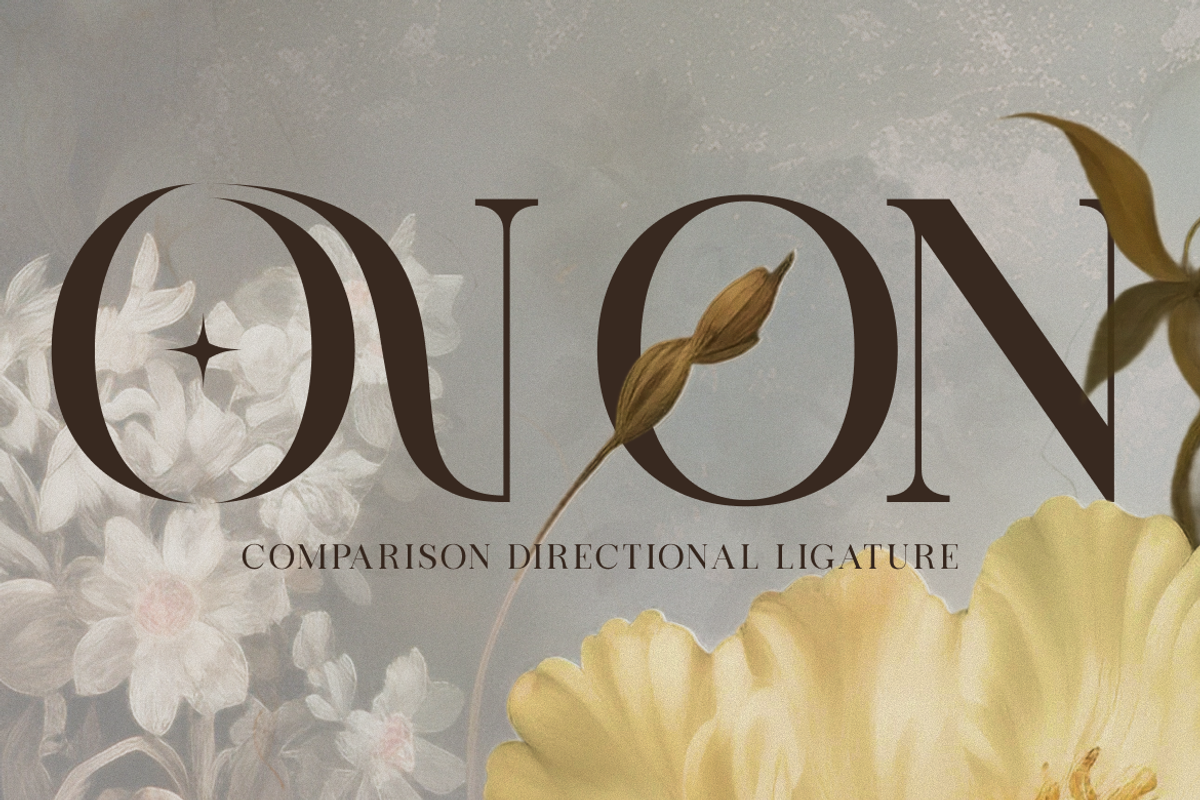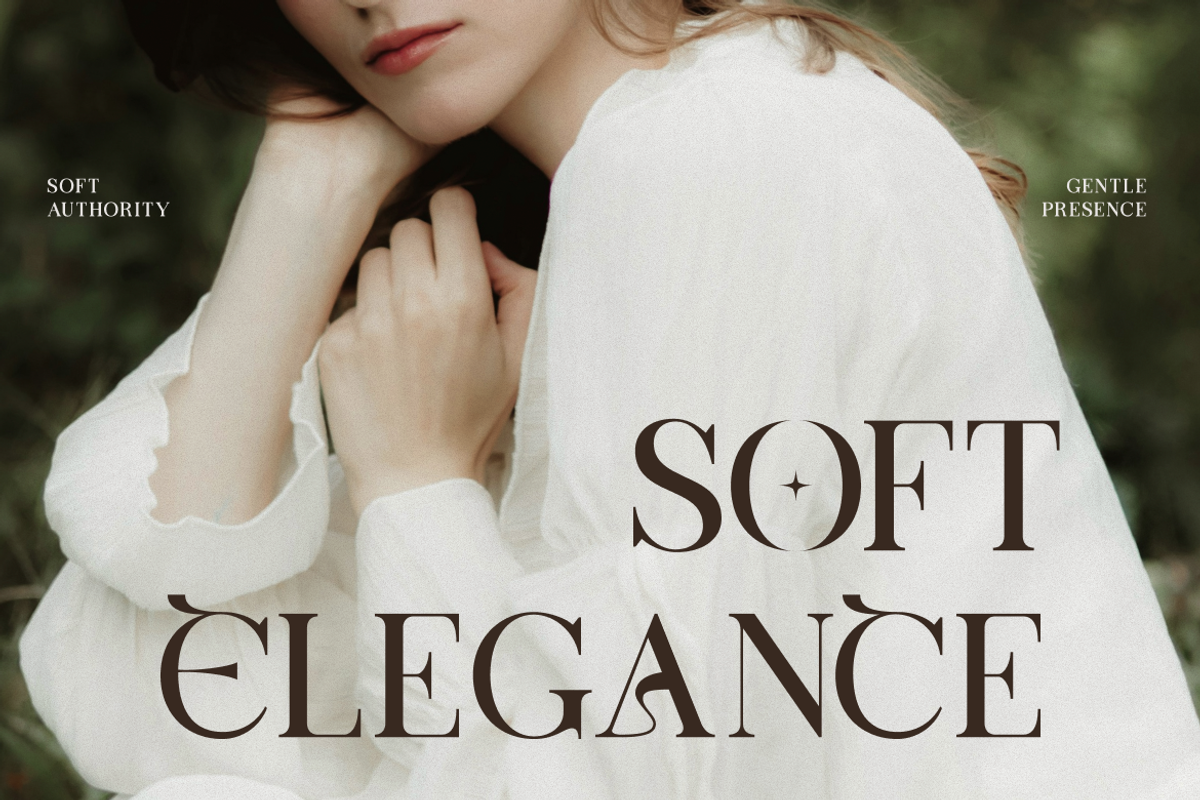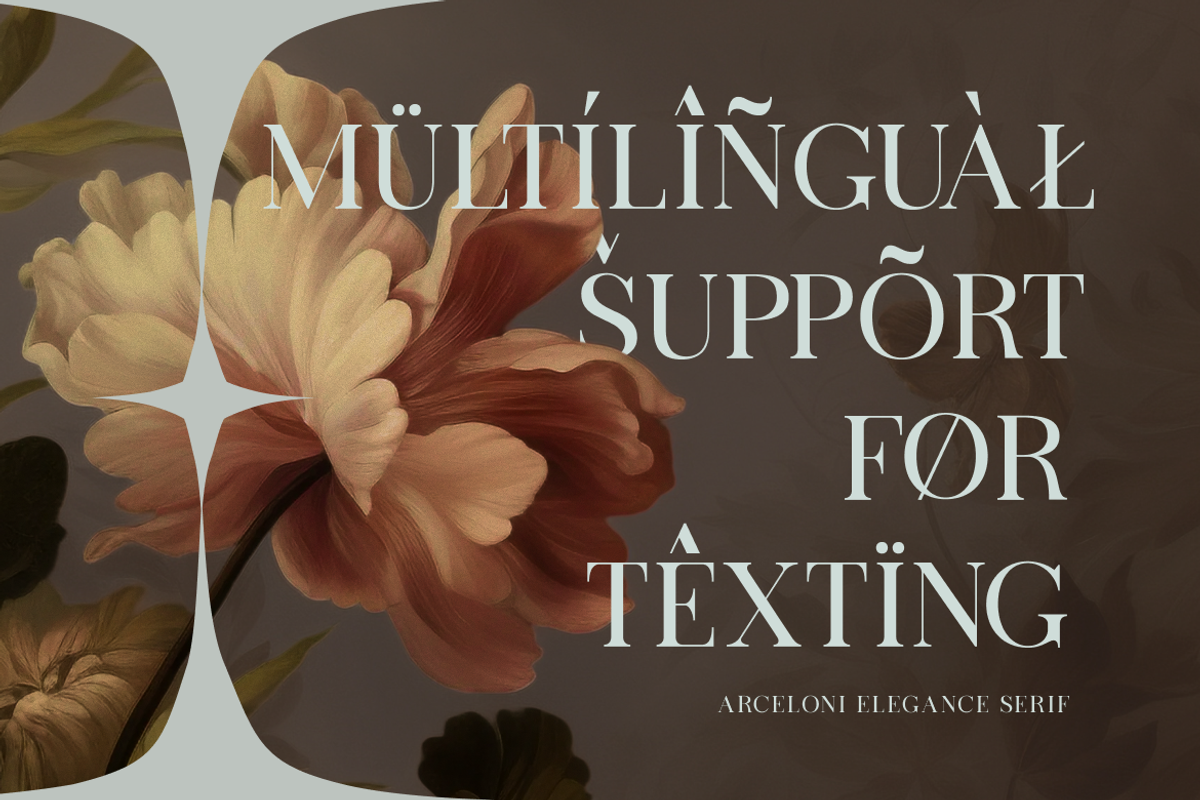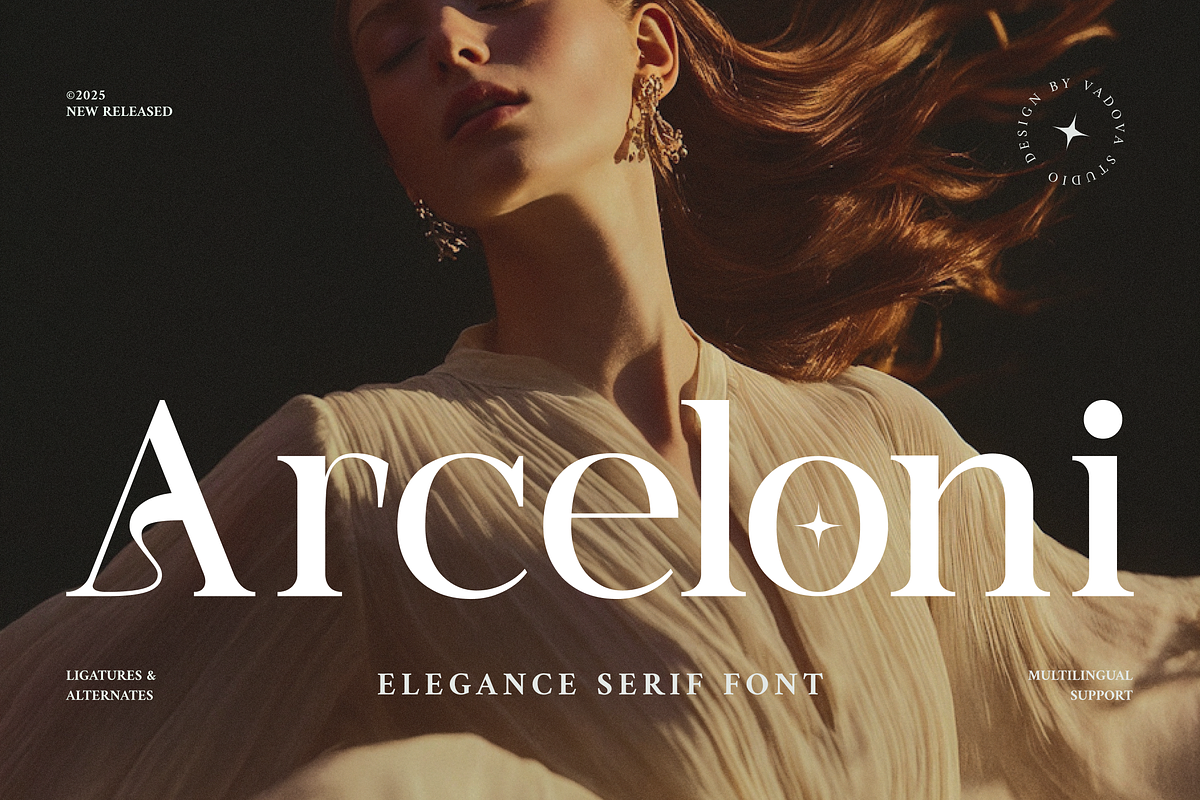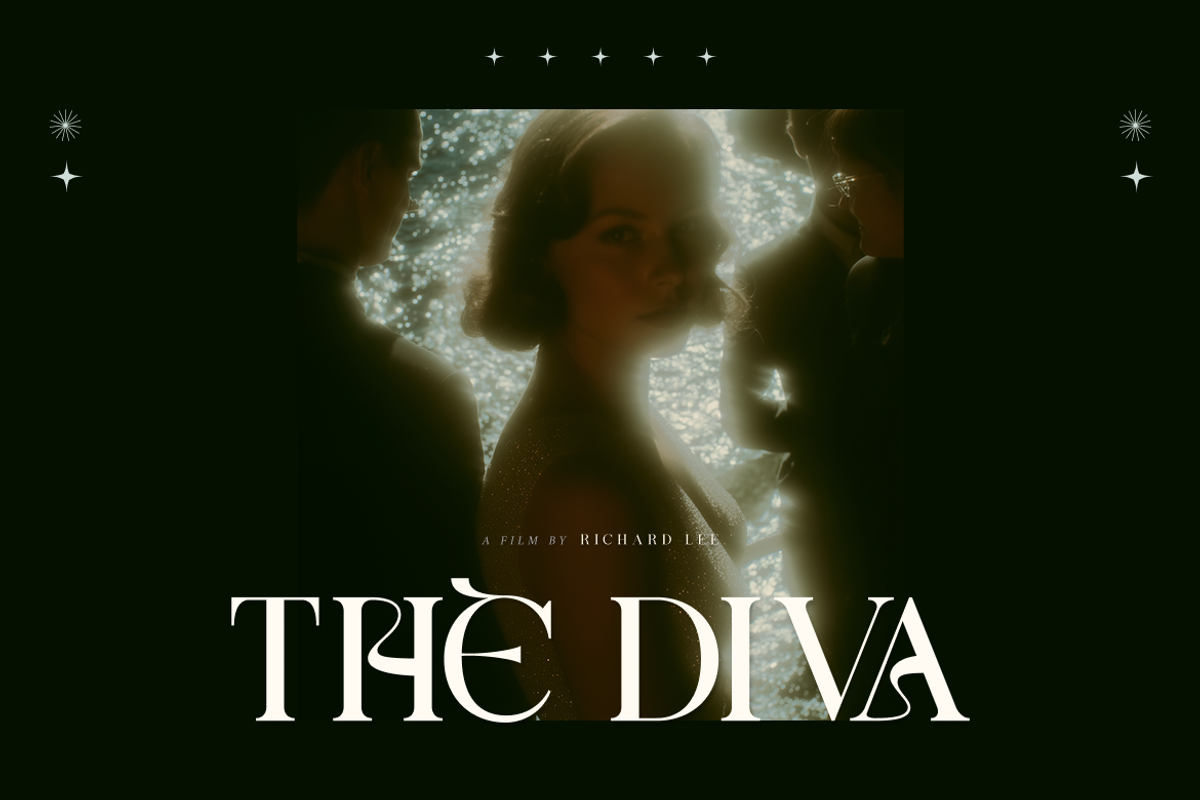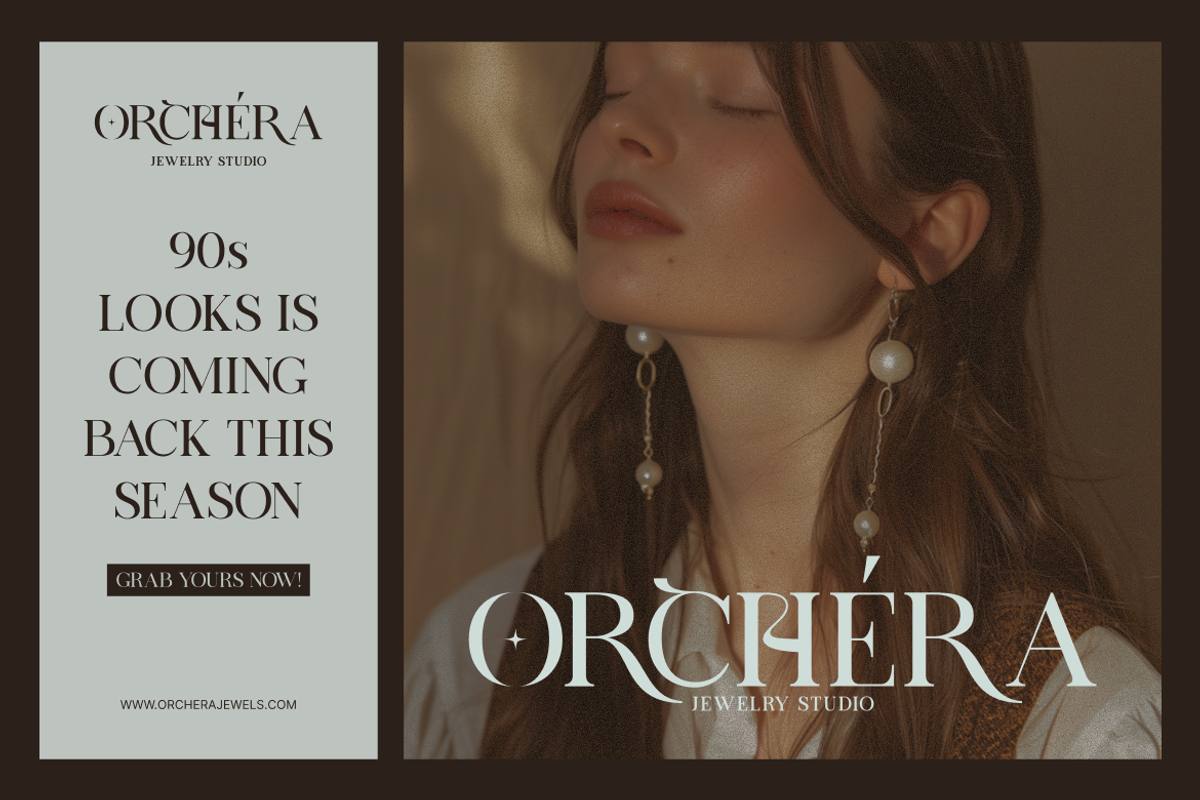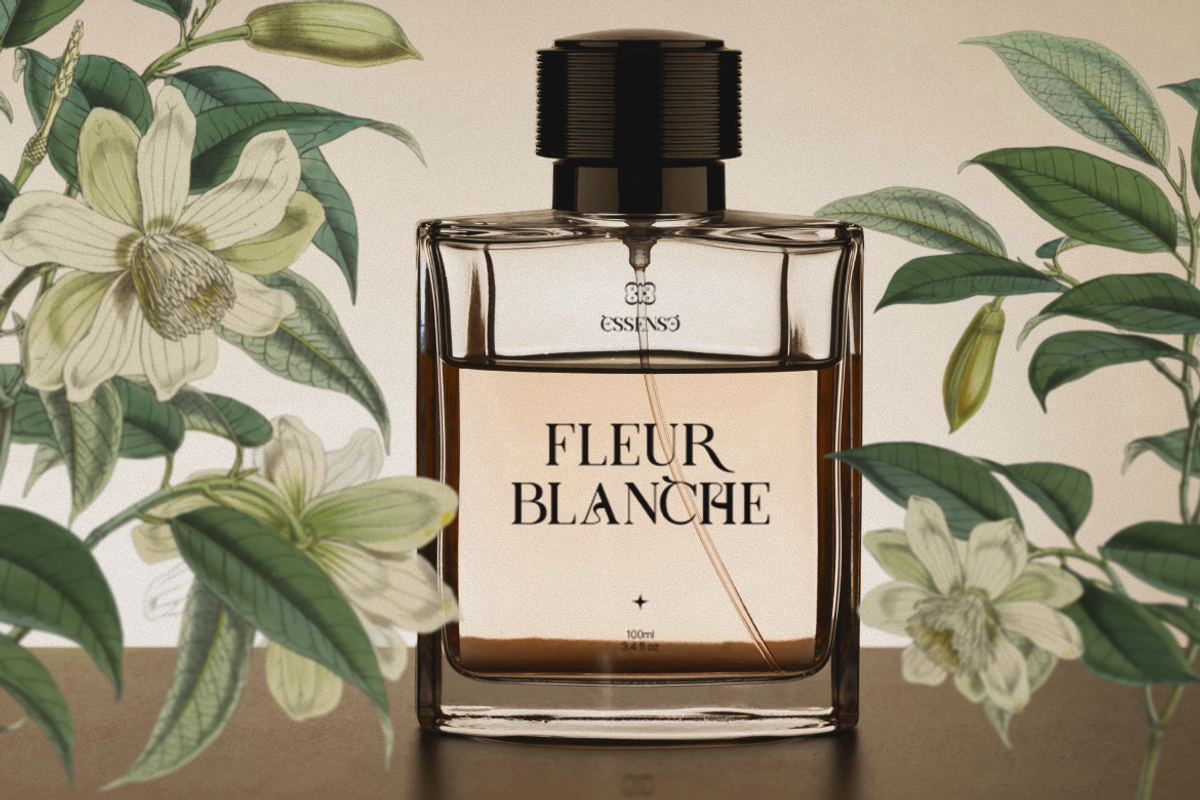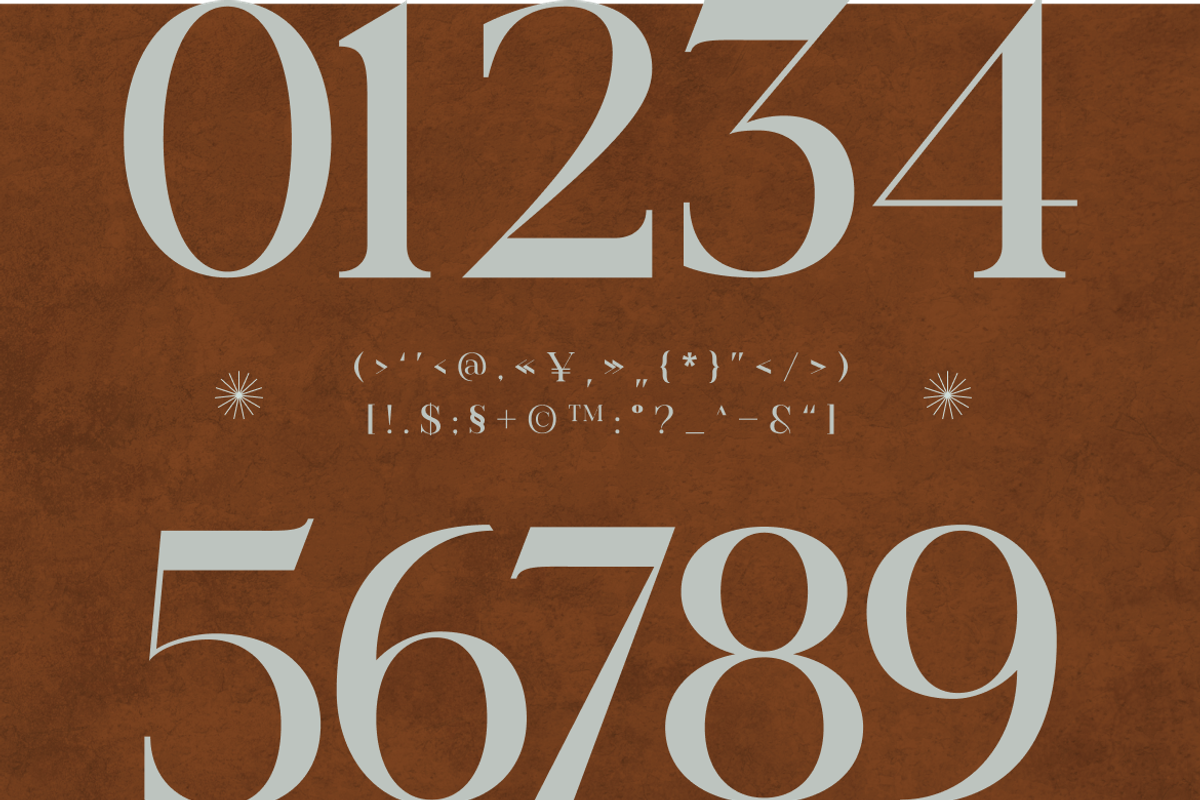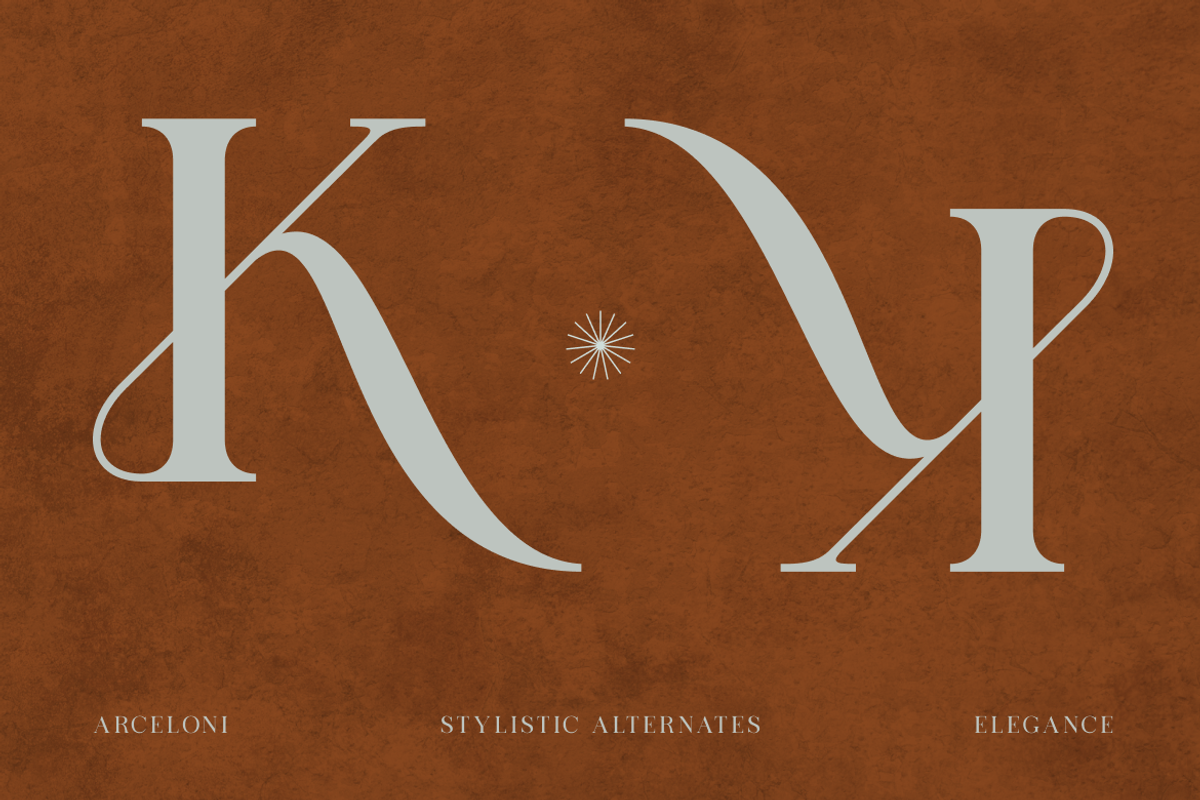
Arceloni Elegance Serif Font
Arceloni is an elegant serif typeface that radiates refinement and artistic flair. Designed with sophisticated curves and unique character shapes, it features stylish alternates, custom ligatures, and decorative letterforms to enhance your branding, packaging, or editorial designs. Arceloni’s subtle yet impactful style makes it ideal for logos, beauty branding, luxury fashion, and creative headline treatments.
Arceloni is crafted for designers seeking a timeless serif with high-fashion aesthetics and modern versatility. Perfectly suited for branding in beauty, fashion, lifestyle, and editorial industries, it works beautifully in logos, packaging, magazine layouts, and upscale product designs.
- Elegant serif style with refined contrast and timeless form
- Distinctive letterforms with expressive curves and stylish ligatures
- Balanced proportions for upscale visual hierarchy
- High contrast strokes for dramatic and luxurious presence
- OpenType alternates and multilingual support for design flexibility
- Brand identity systems that convey a calm, professional sophistication
- UI/UX design templates for contemporary products and clean mobile apps
- Editorial layouts, lifestyle magazines, and minimalist book interiors
- Product packaging and label designs requiring clarity and refined aesthetics
- Social media templates and digital marketing kits with subtle elegance
Timeless elegance, modern edge, Arceloni Serif makes every word count